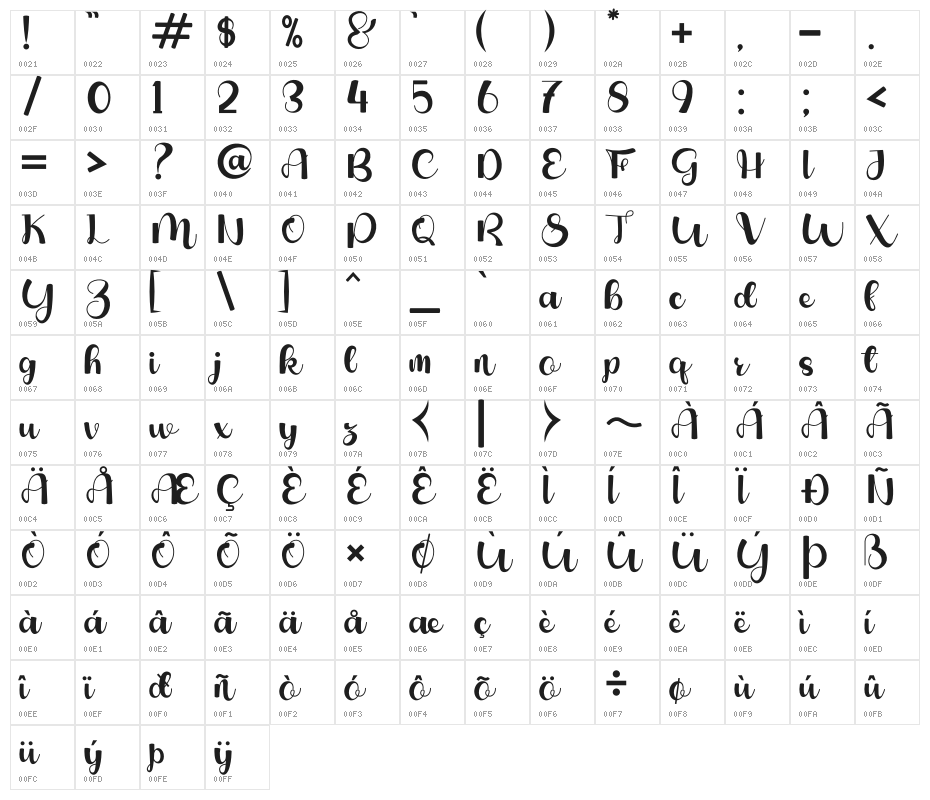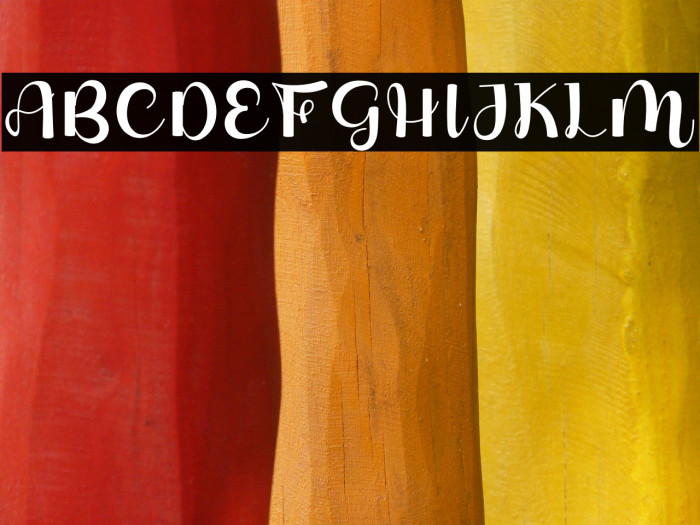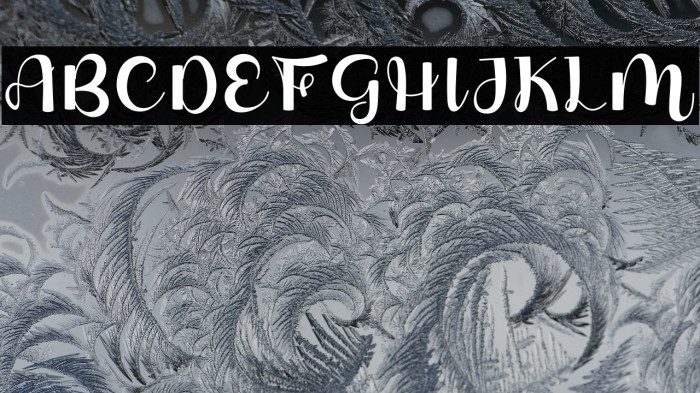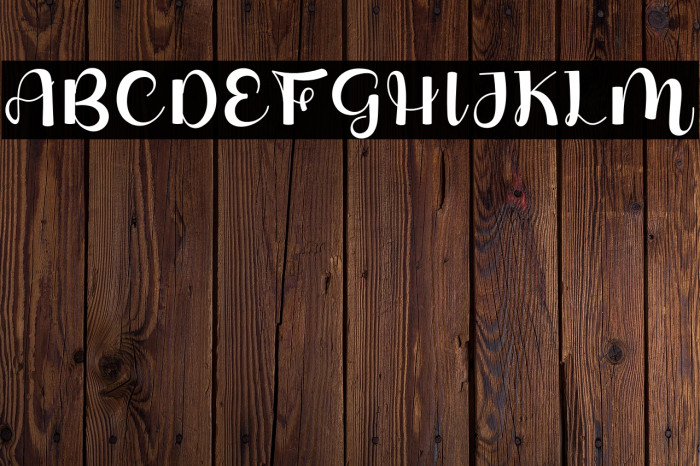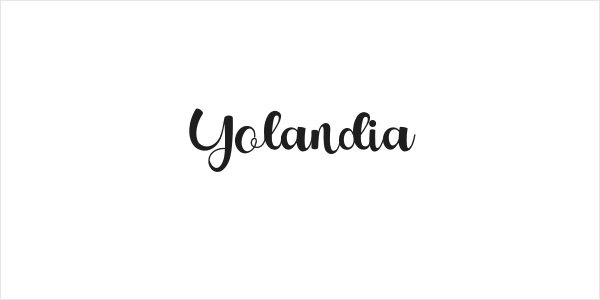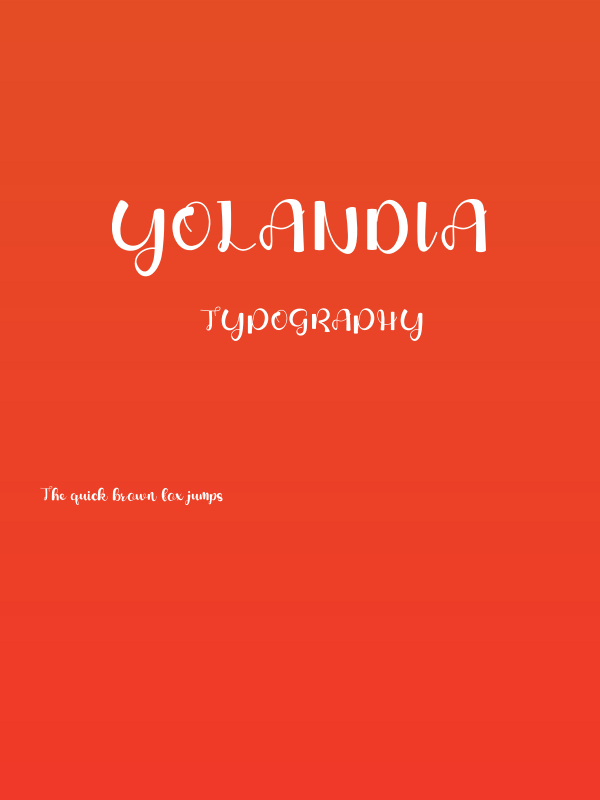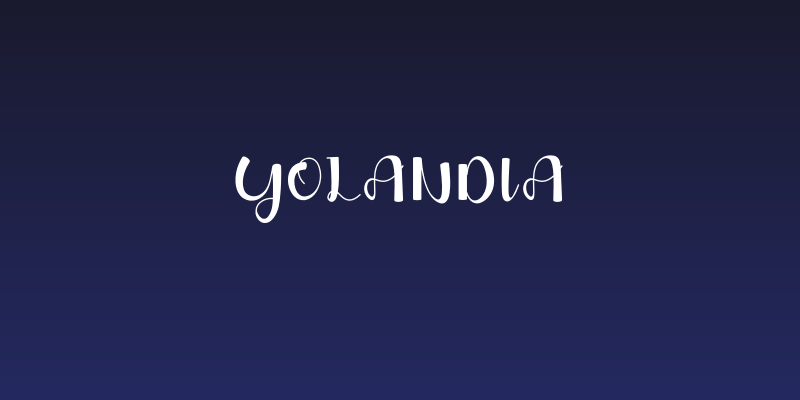
Yolandia Font
Yolandia Description
This font features a playful and whimsical script style, characterized by its flowing, interconnected letters and bold, rounded forms. The uppercase letters exhibit a unique blend of curves and loops, giving them a lively and dynamic appearance. The lowercase letters maintain a consistent style, with some characters having distinctive flourishes that add to the font's charm. The numerals are bold and slightly rounded, complementing the overall aesthetic. Special characters are creatively designed, maintaining the playful theme. This font is well-suited for projects that require a touch of fun and creativity.